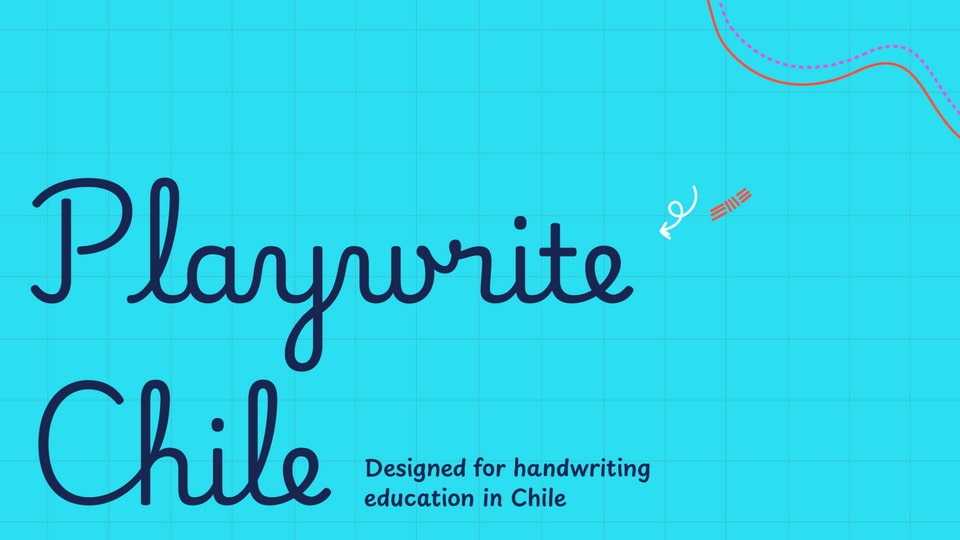
Download Playwrite Chile font, a typeface that allows the creation of primary school cursive fonts. This upright continuous cursive features a mix of uppercase styles.